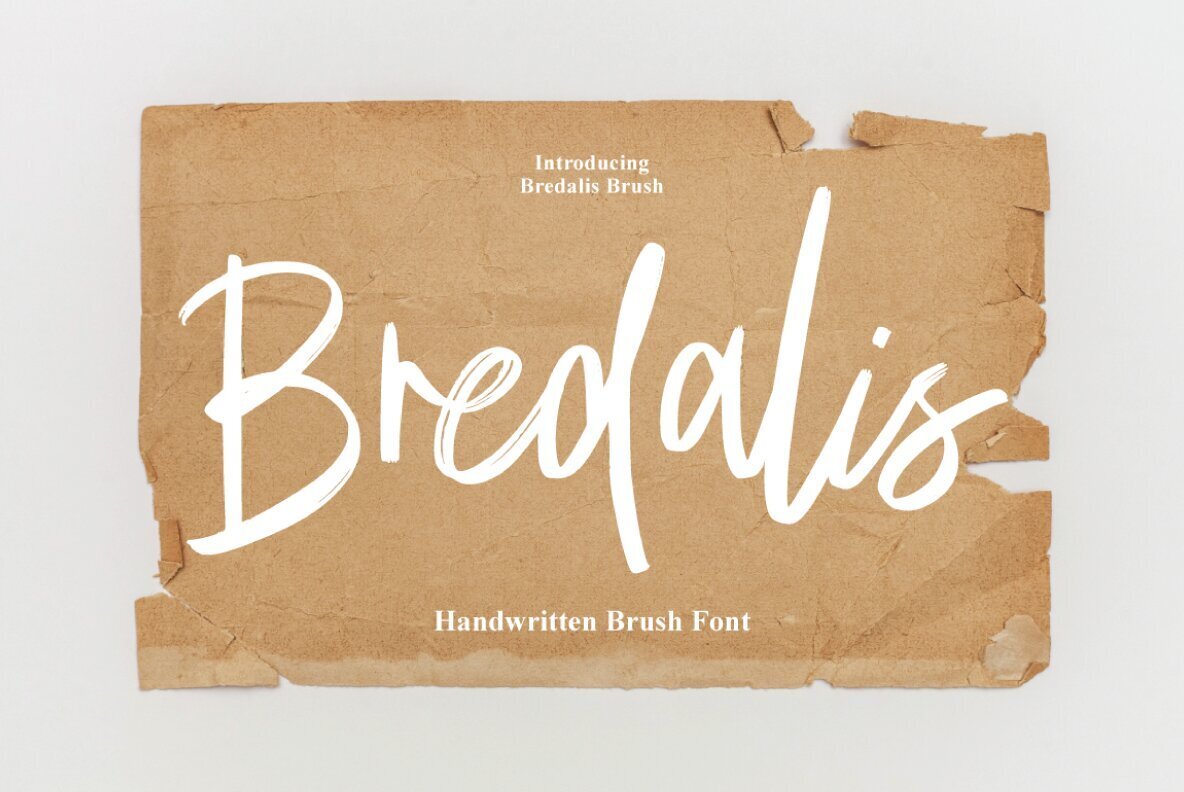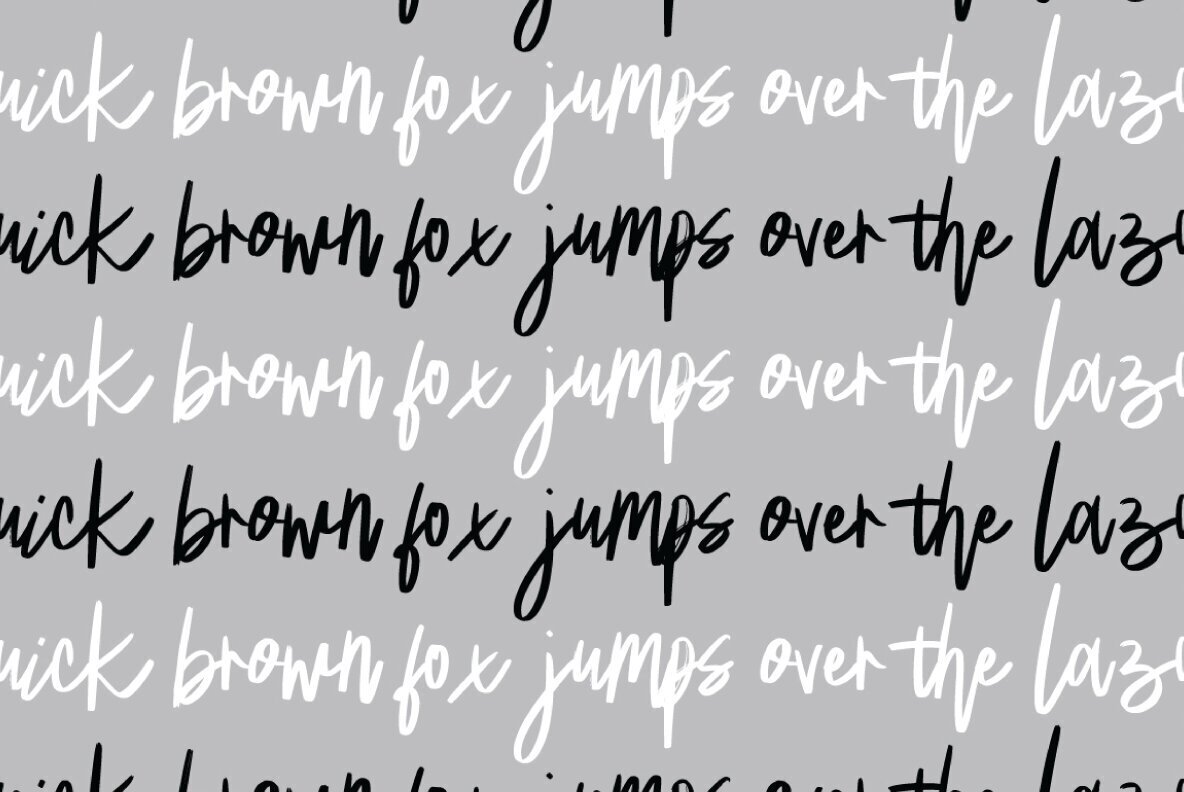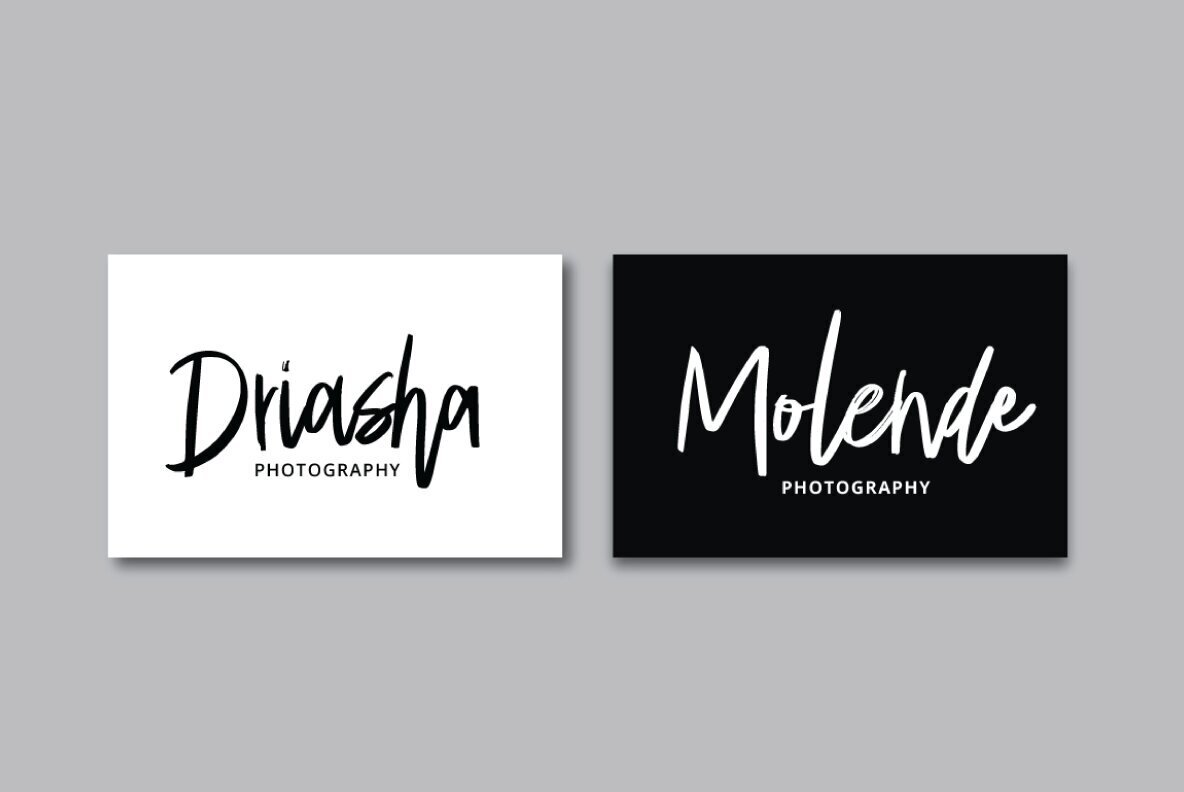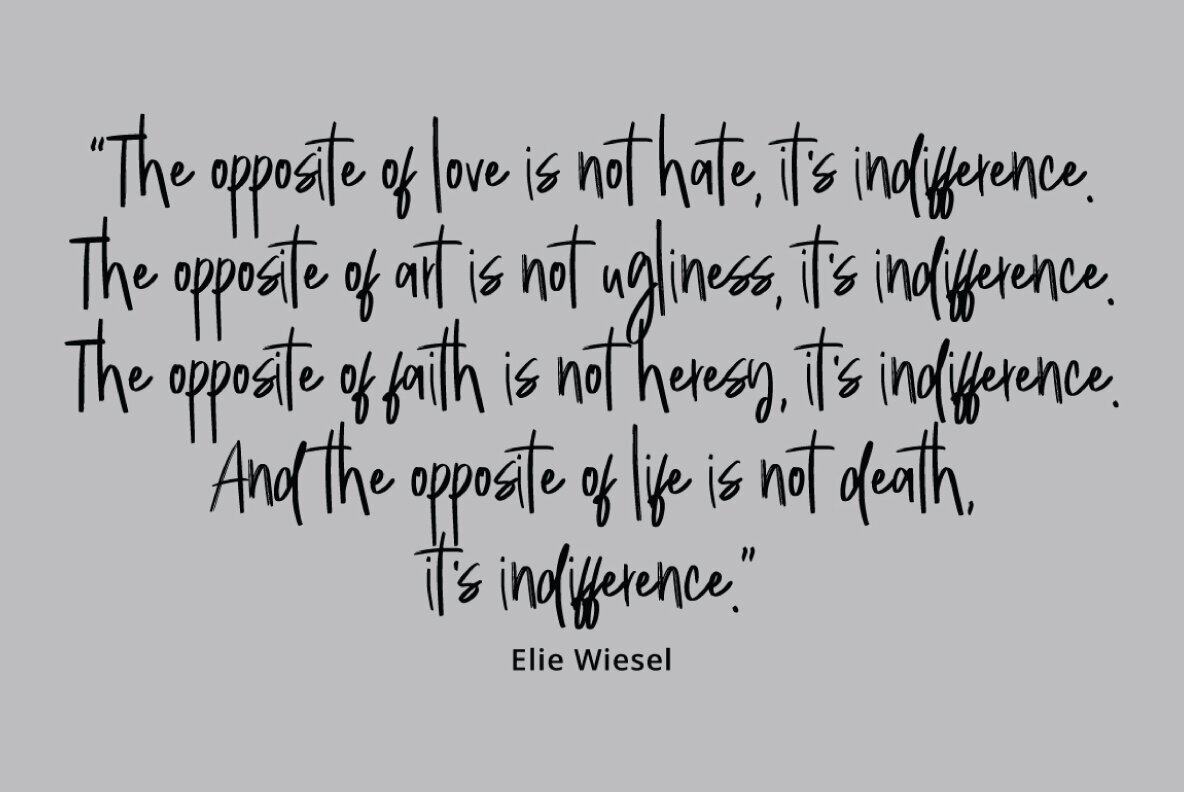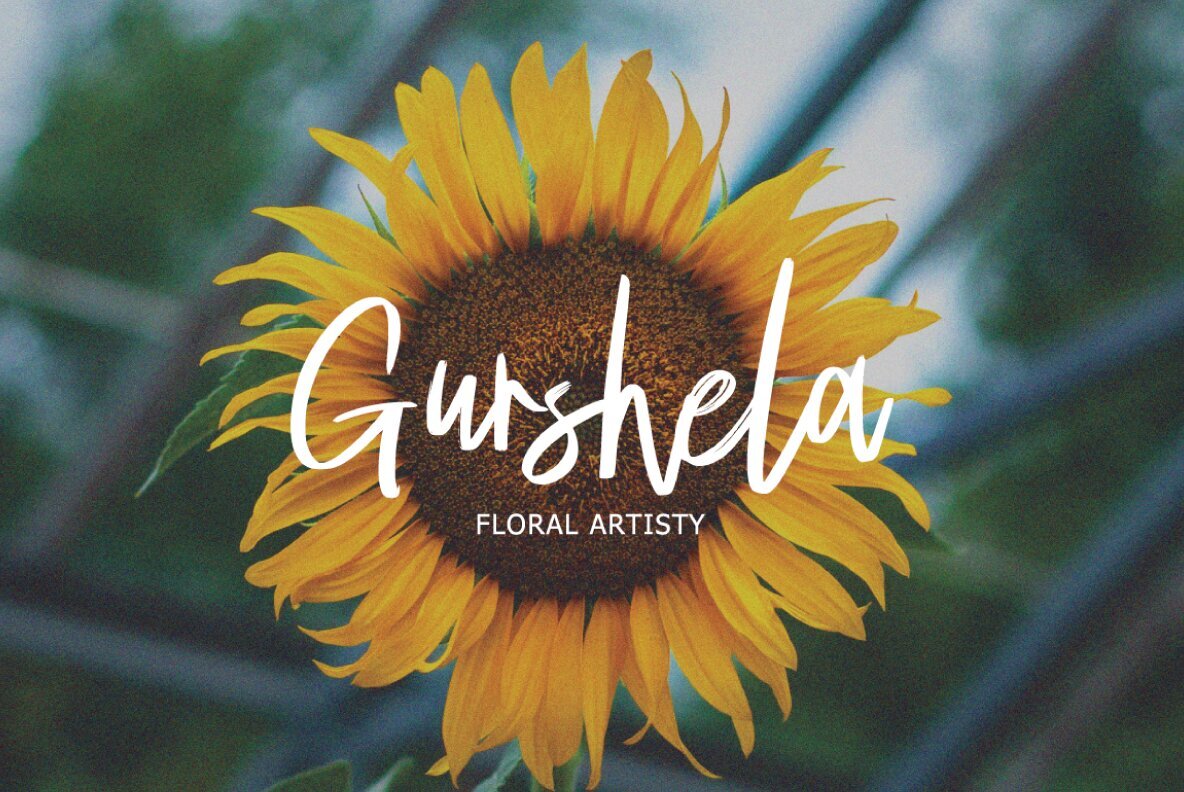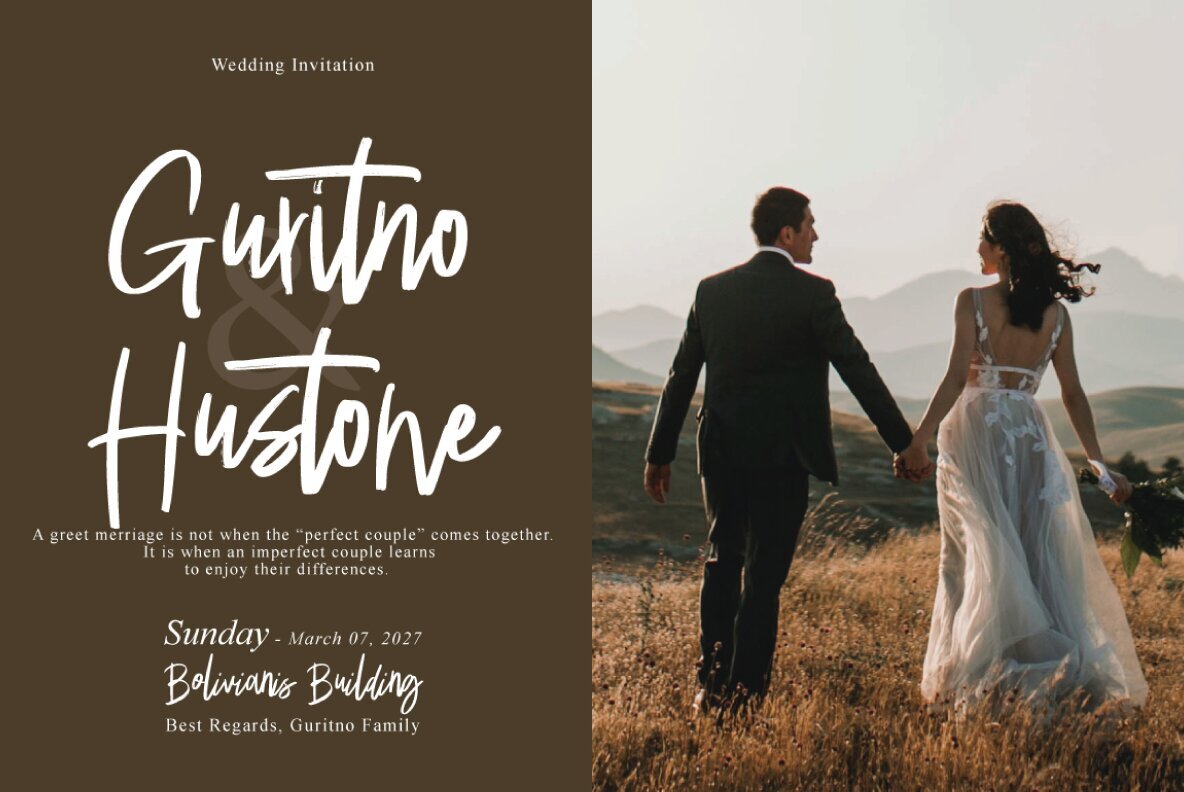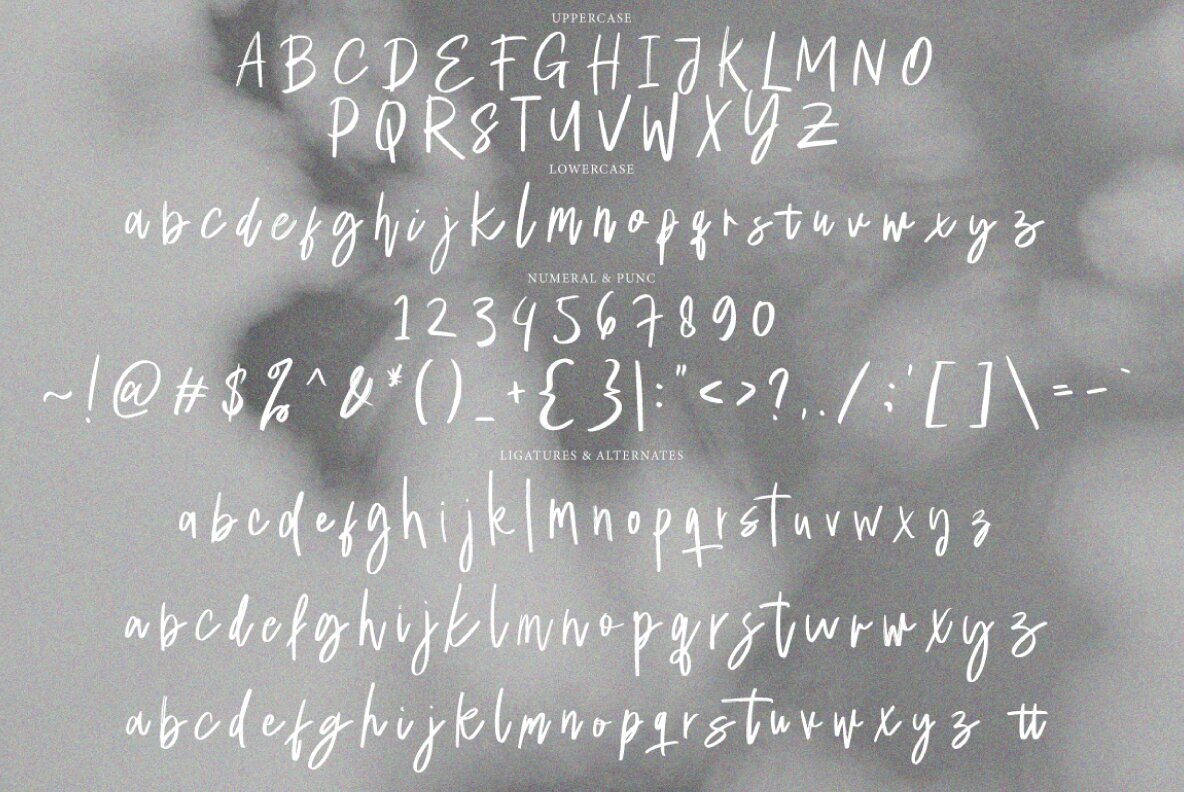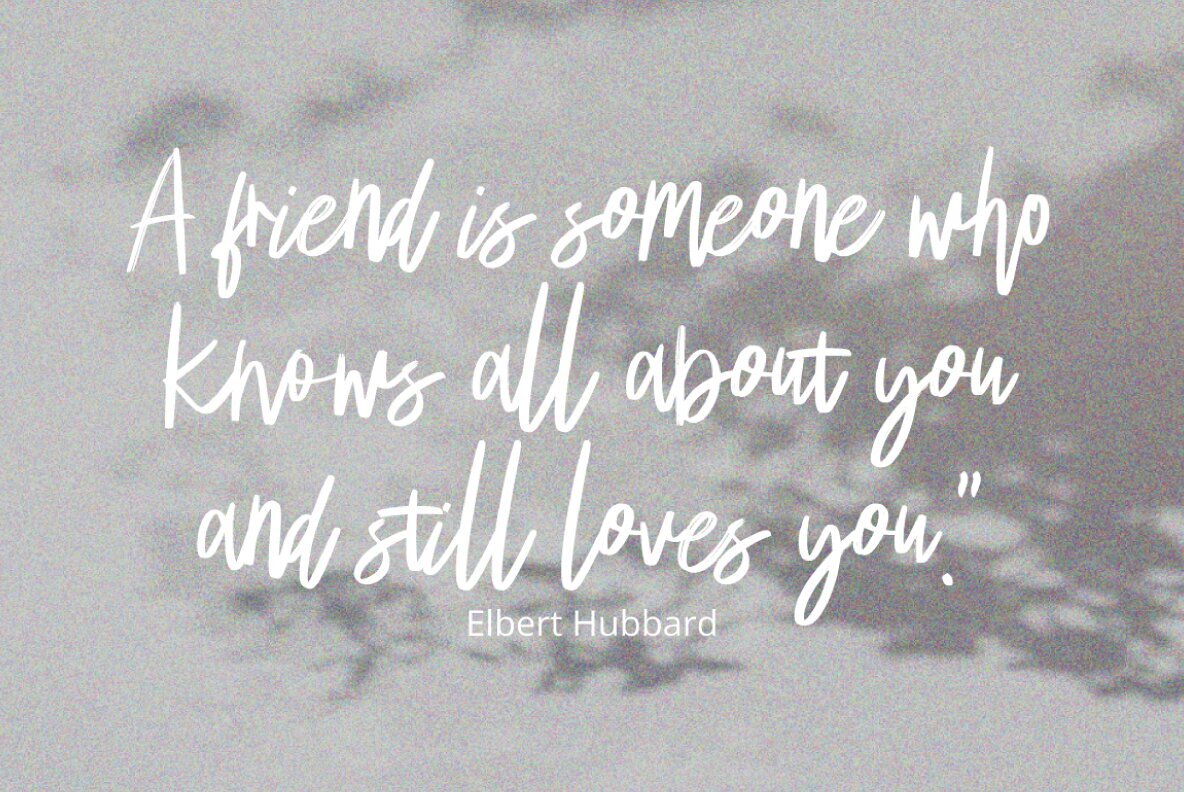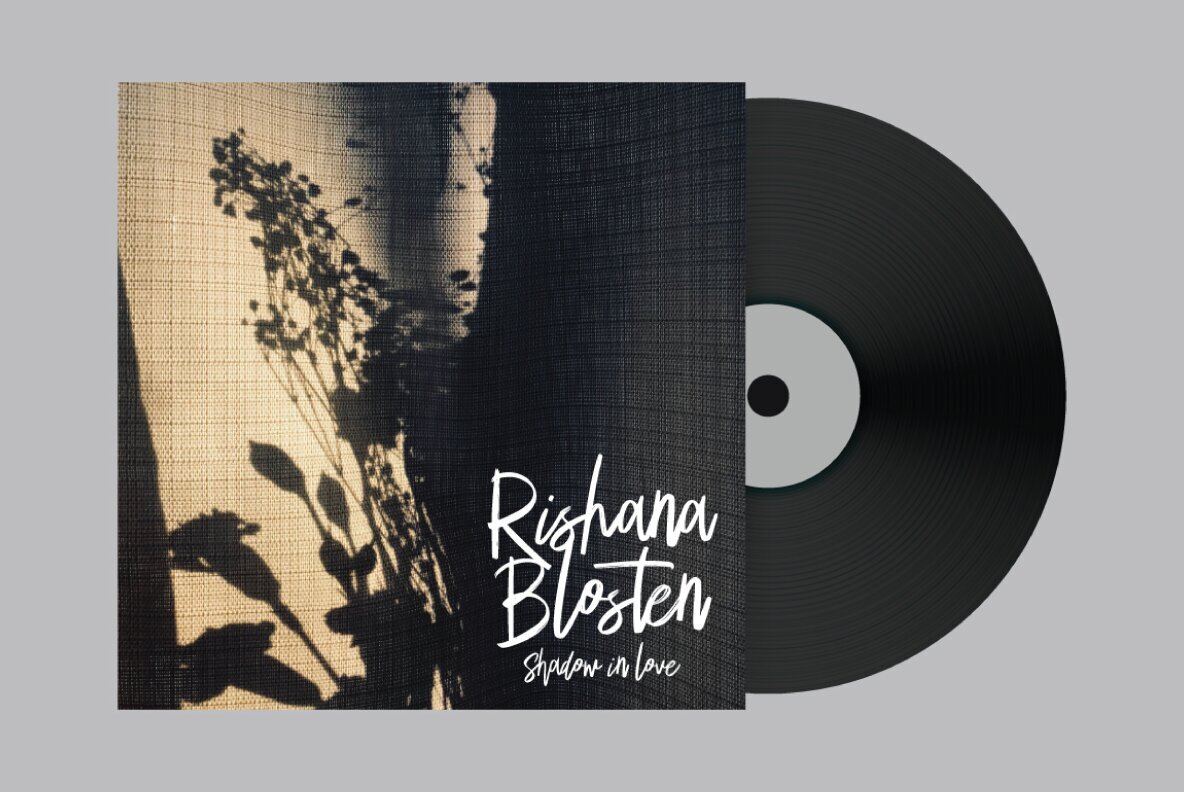
Bredalis Font
Bredalis Brush Regular
Introducing Bredalis Brush by Executype Studio, a typeface that exudes character and charm. Perfect for a variety of applications—from logos to badges, and from headlines to packaging, it easily enhances any project with its distinct style.Bredalis Brush Typeface
The Bredalis Brush features a range of alternate characters, divided into several OpenType features like Stylistic Alternates, Stylistic Sets, and Ligatures. These features can be effortlessly accessed using OpenType programs such as Adobe Illustrator, Adobe Photoshop, and Adobe InDesign, enhancing the versatility and adaptability of your design endeavors.Key Features